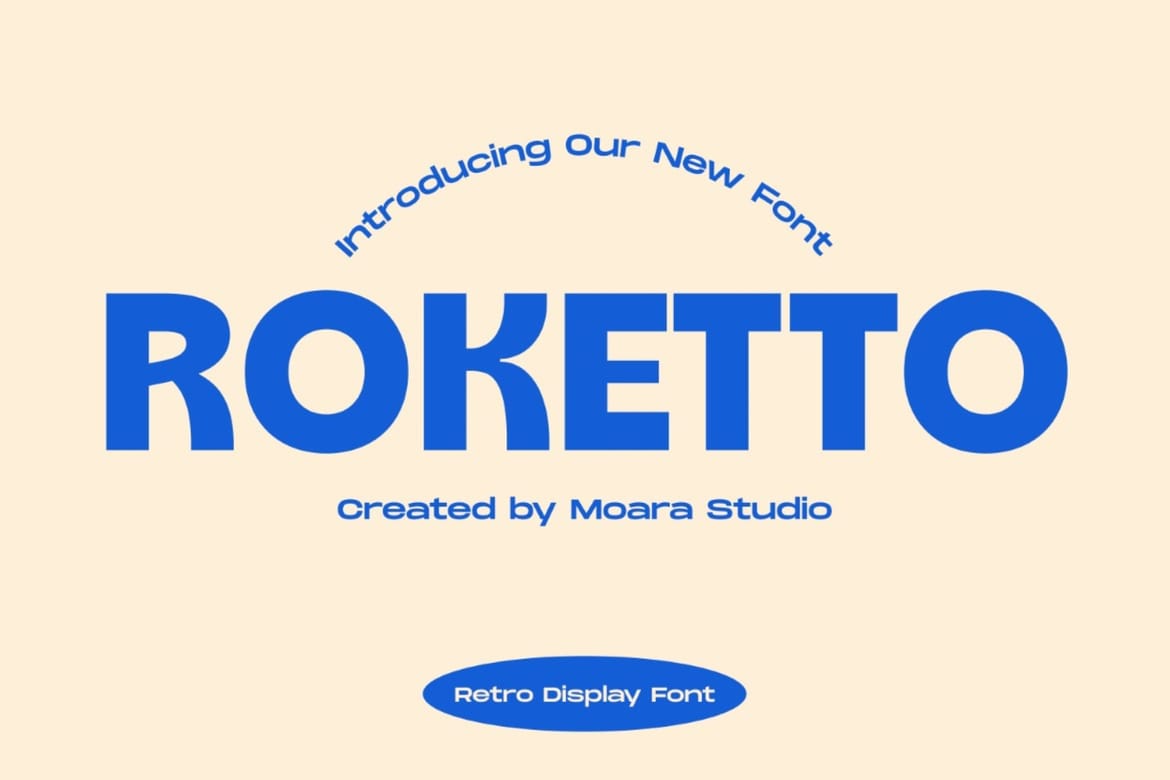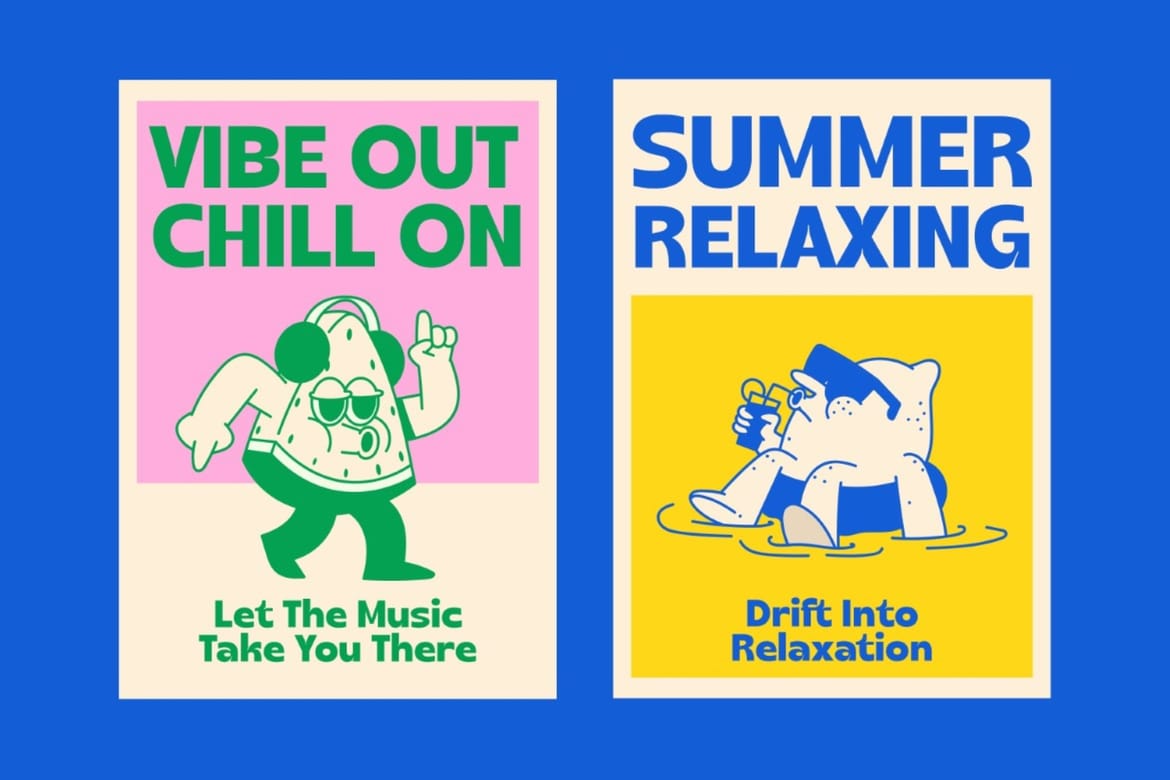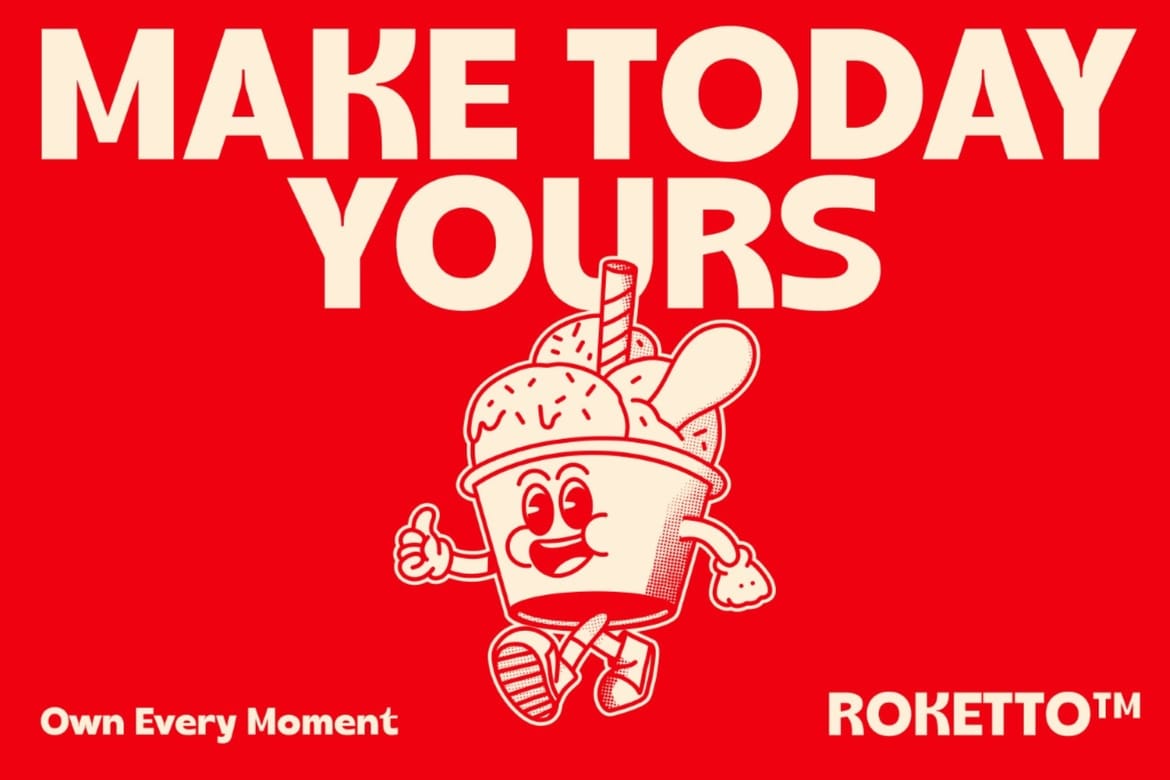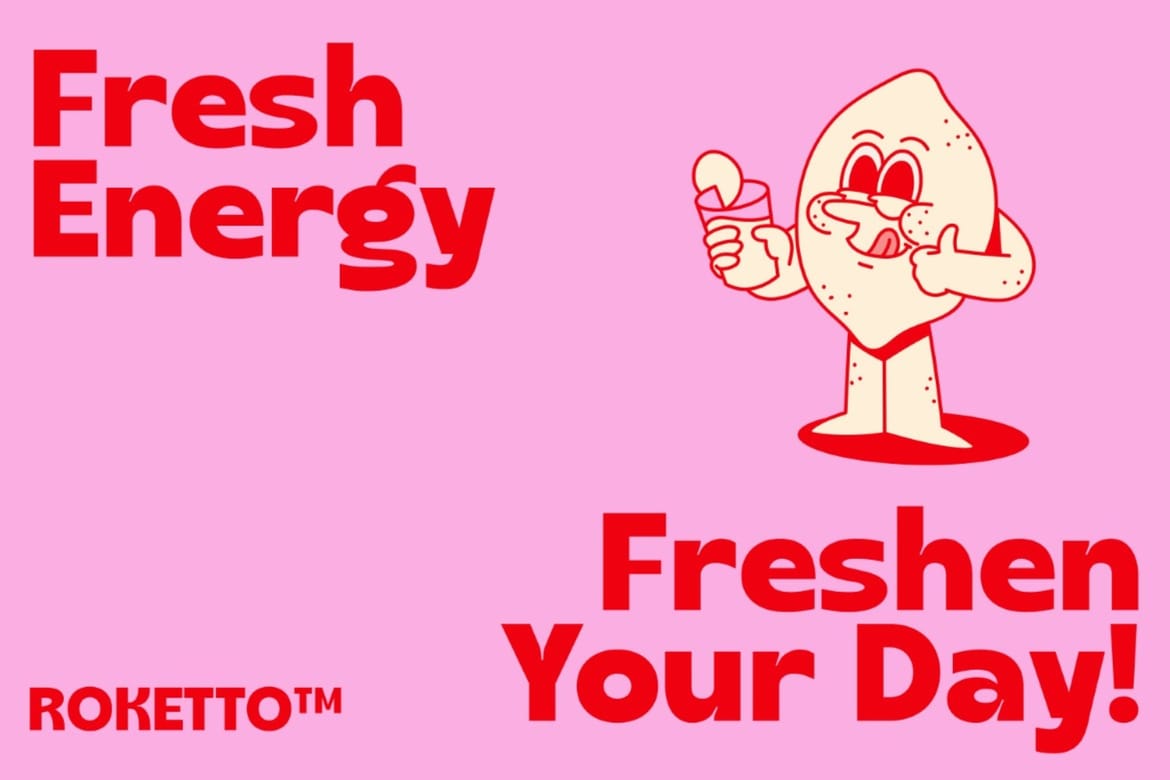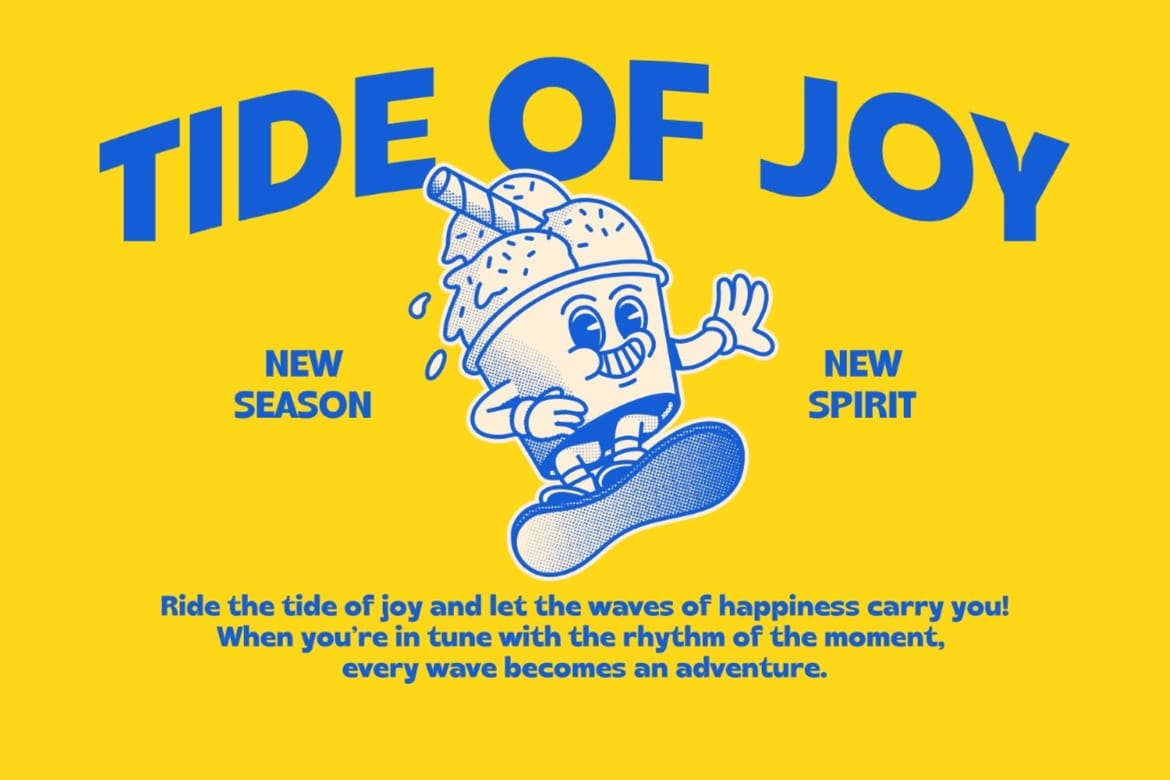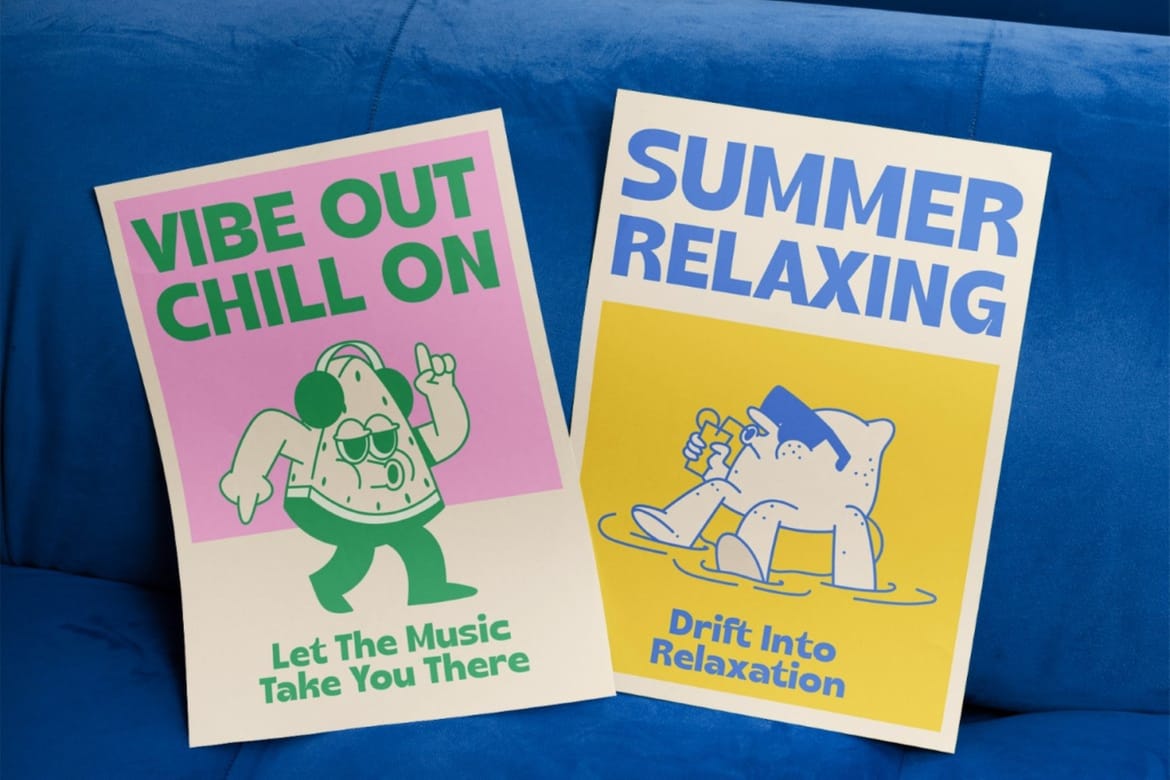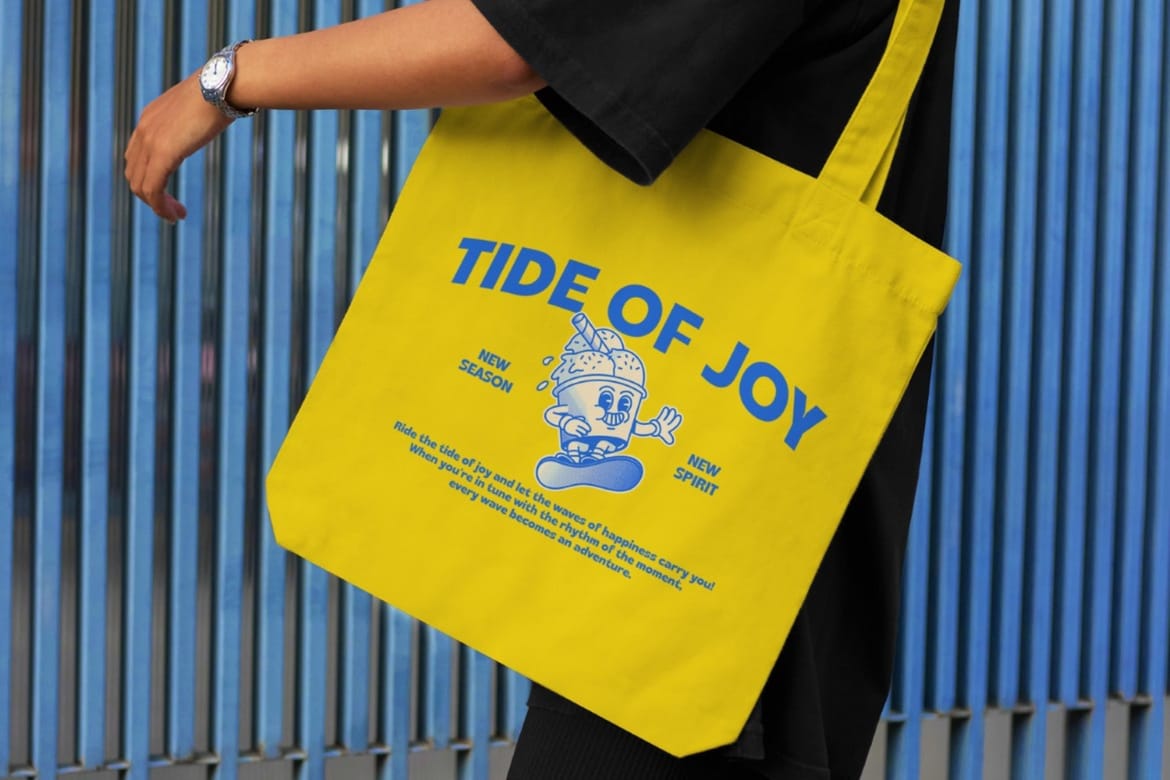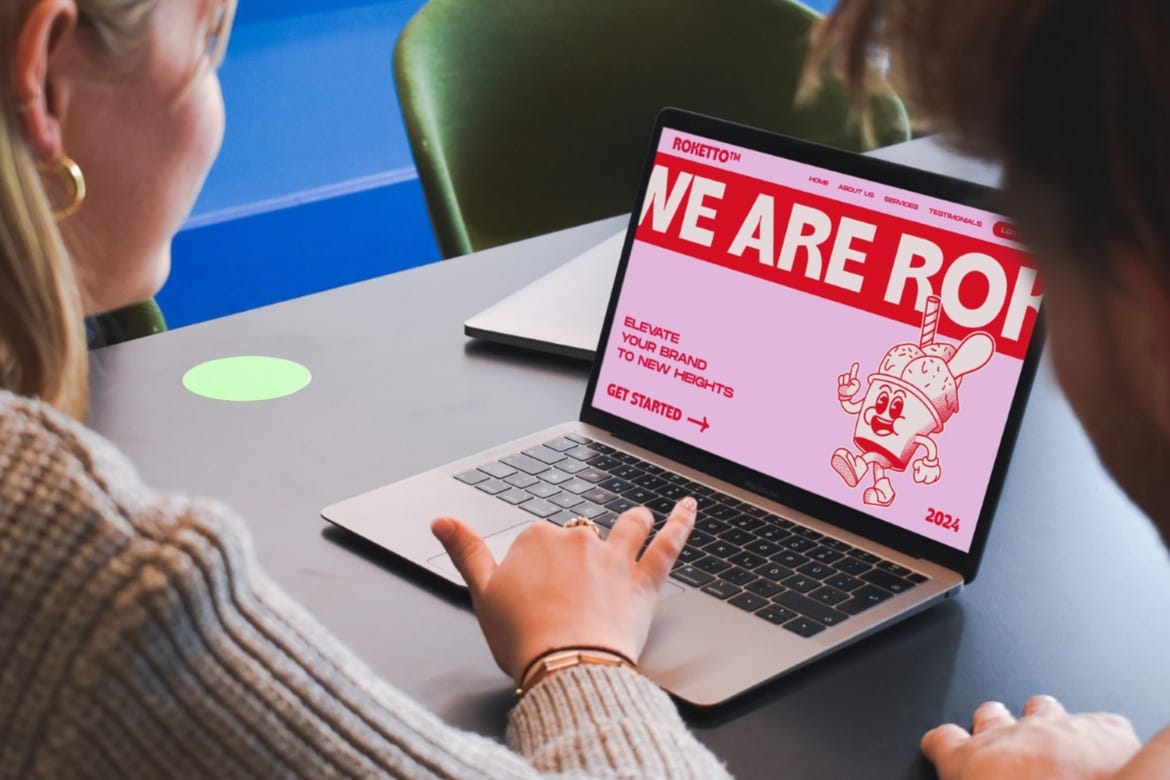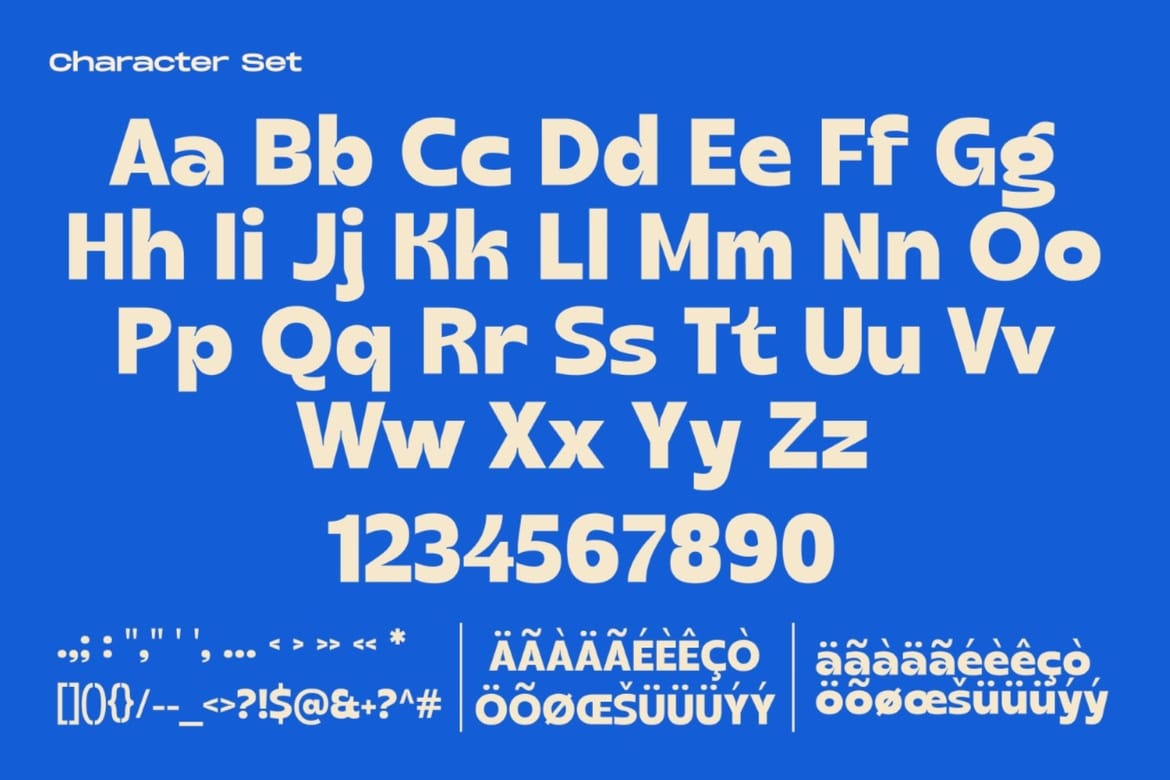
Roketto is a bold, retro display font created by Moara Studio. With its strikingly modern lines and nostalgic appeal, Roketto is perfect for standout headlines, posters, and branding that seeks a classic yet contemporary feel. This versatile font adds energy and personality to any design project.
Bold geometric sans-serif with a sleek retro-modern vibe
Perfect for tech branding, sporty visuals, and futuristic poster designs
Wide clean letterforms create a powerful high-energy presence with strong readability